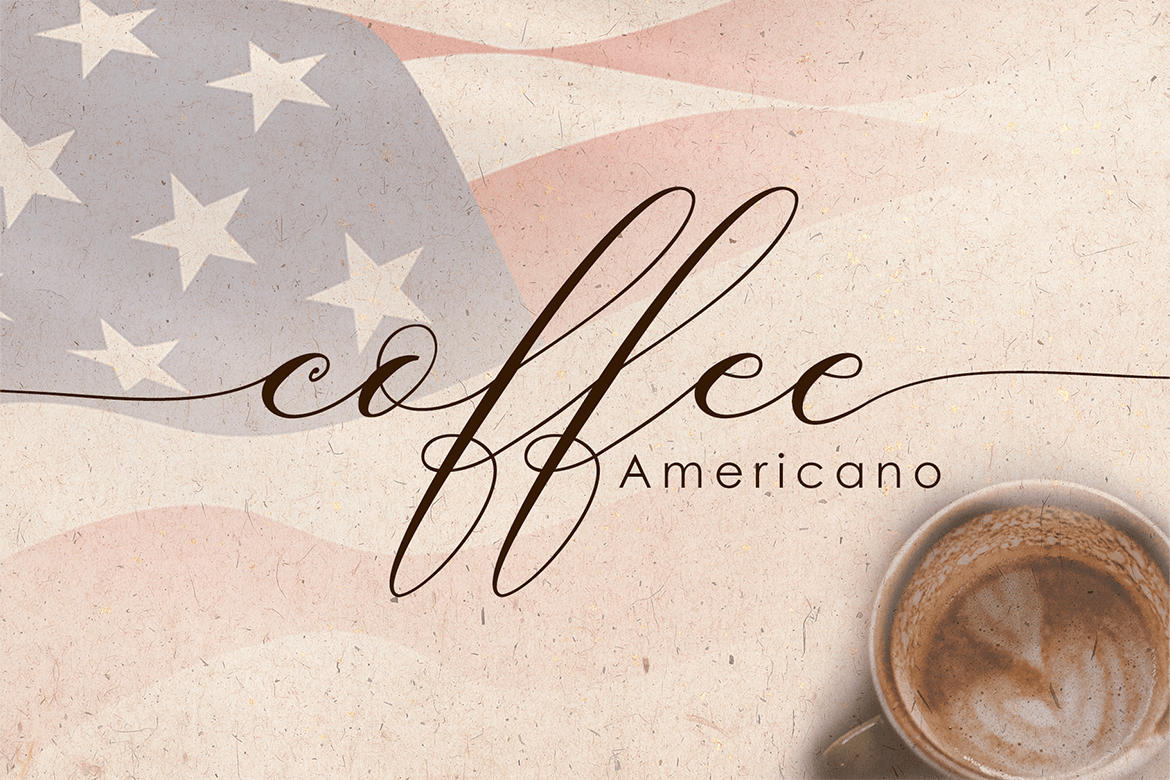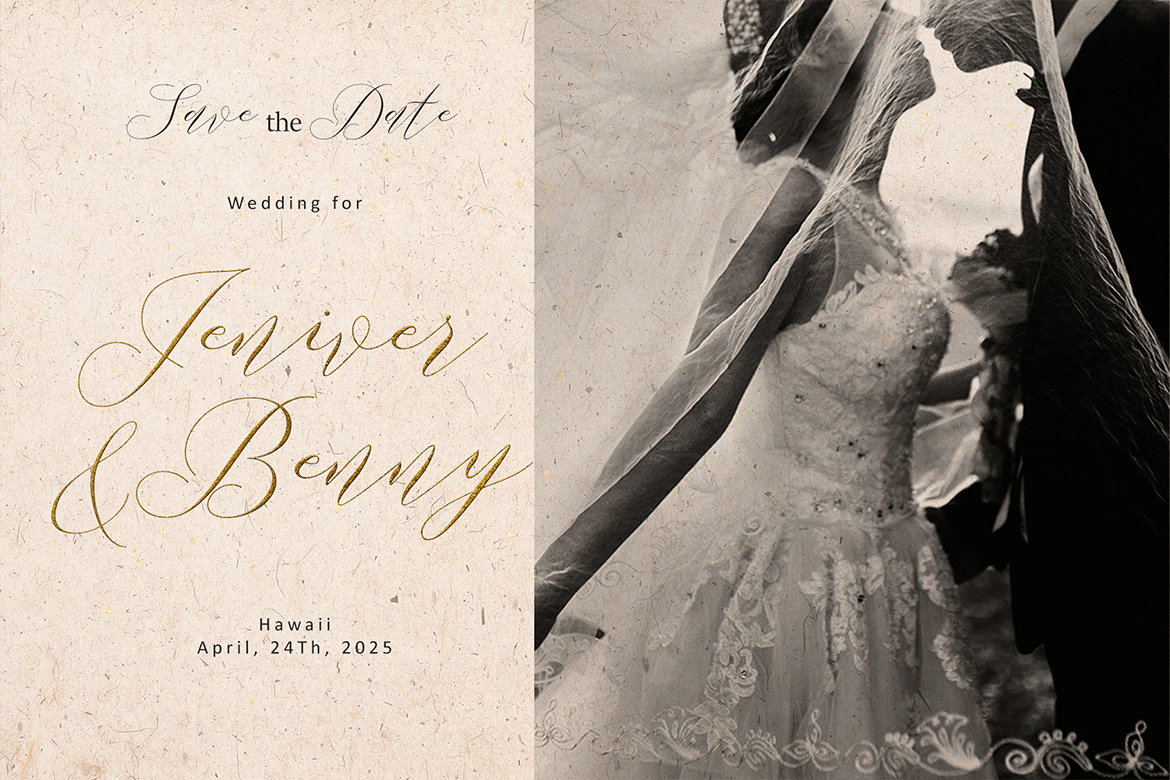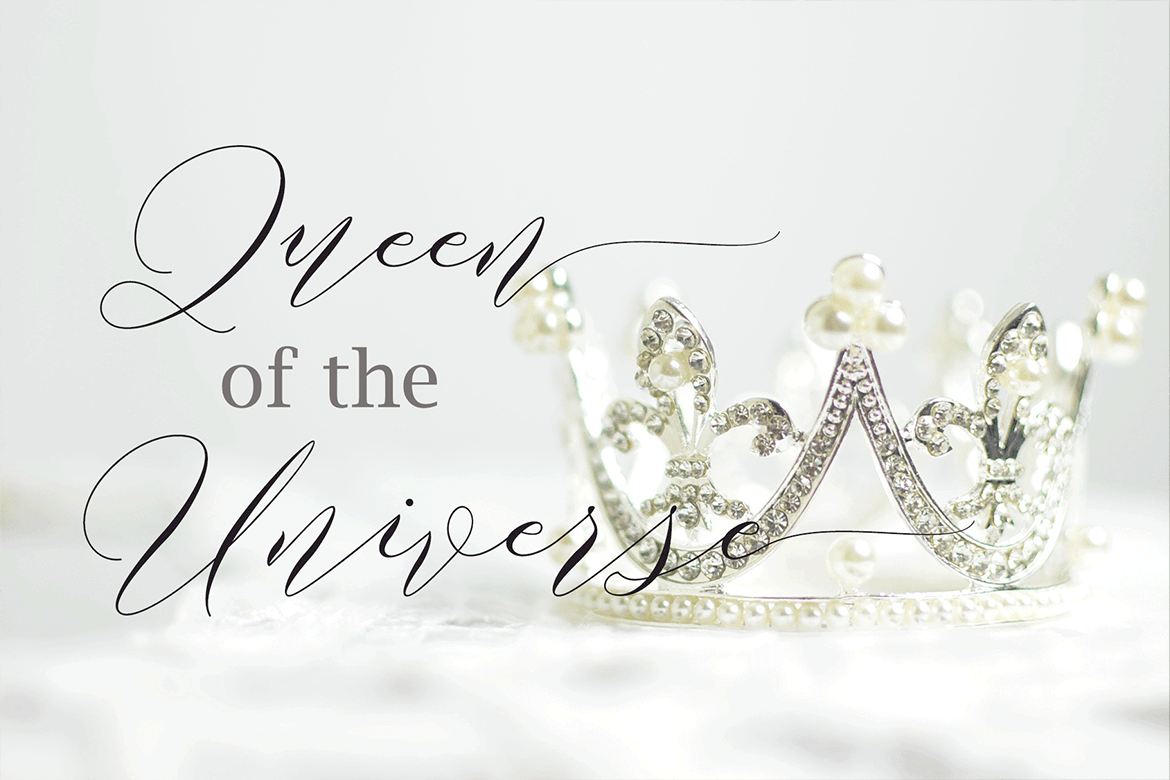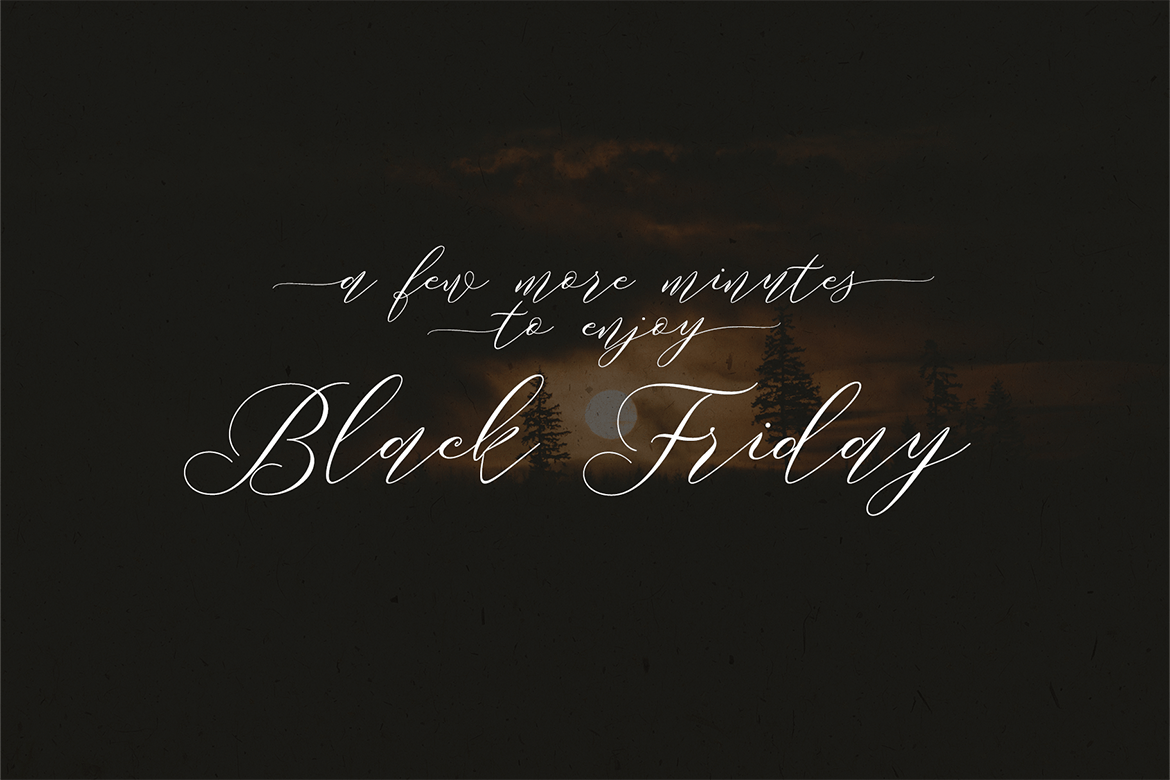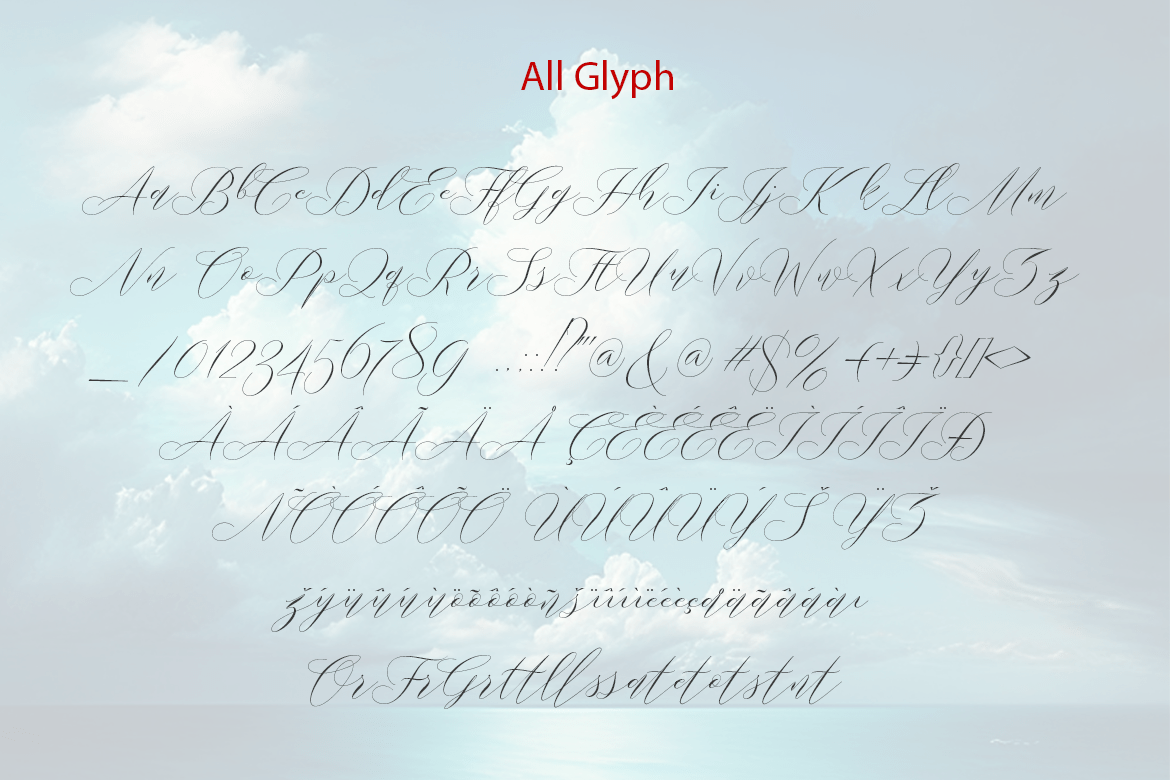
Jamaika
Jamaika is a font script that is beautiful and unique, it is a model of modern calligraphy typefaces, in combination with a calligraphy writing style.
The Features of this fonts is:
- Standard ligatures
- Initial Alternates
- Terminal Alternates
Can be used for various purposes.such as headings, logos, wedding invitation, t-shirt, letterhead, signage, label, news, posters, badges etc. To enable the OpenType Stylistic alternates, you need a program that supports OpenType features such as Adobe Illustrator CS, Adobe Indesign & CorelDraw X6-X7